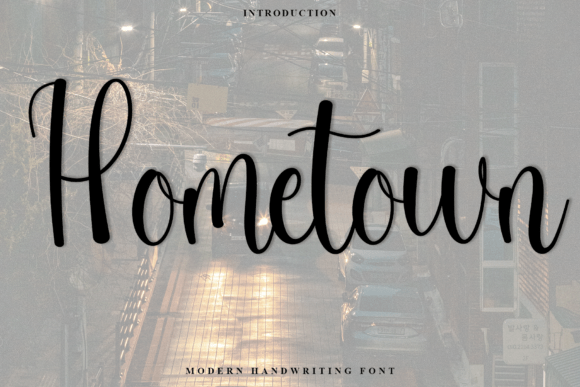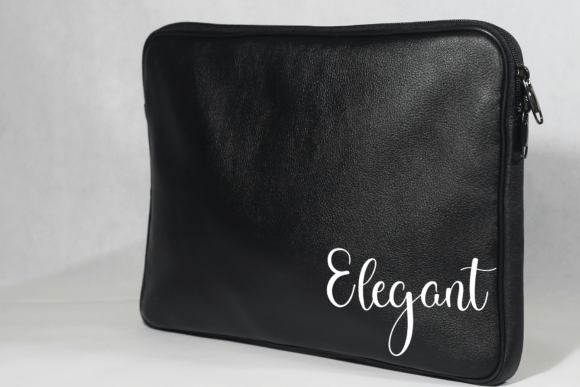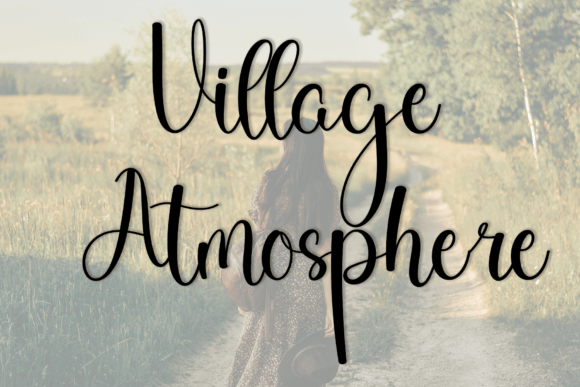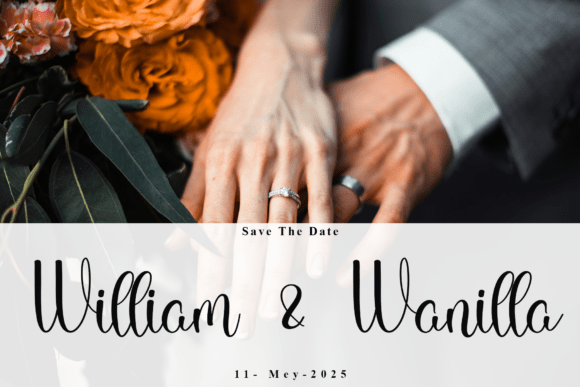
Hometown Font: Elegant Handwritten Script for Wedding & Logo Design
About the Hometown Font
We are excited to introduce Hometown Font, a must-have typeface for any serious designer. Hometown is a trendy handwritten font with a contemporary atmosphere and impeccable form, inspired by timeless classic calligraphy. It will add elegance and class to any of your design projects.
Hometown’s elegant yet casual style makes it ideal for headlines, short-form text in branding materials, or on packaging where a touch of personality is desired. It works particularly well for projects targeting a younger demographic or those with a focus on lifestyle and fashion. Avoid using it for body text or lengthy paragraphs; its handwritten nature can hinder readability at smaller sizes.
For a sophisticated contrast, pair Hometown with a clean, geometric sans-serif like Montserrat or a neutral serif such as Lato. This juxtaposition creates visual interest without overwhelming the design. A playful script font, used sparingly, could also complement its informal character, although careful consideration of letter spacing is needed to maintain legibility.
Its core personality is sophisticated yet approachable – a blend of modern elegance and friendly informality. This makes it unsuitable for projects requiring a serious or highly formal tone.
Hometown Font Usage Examples
Hometown Font Example